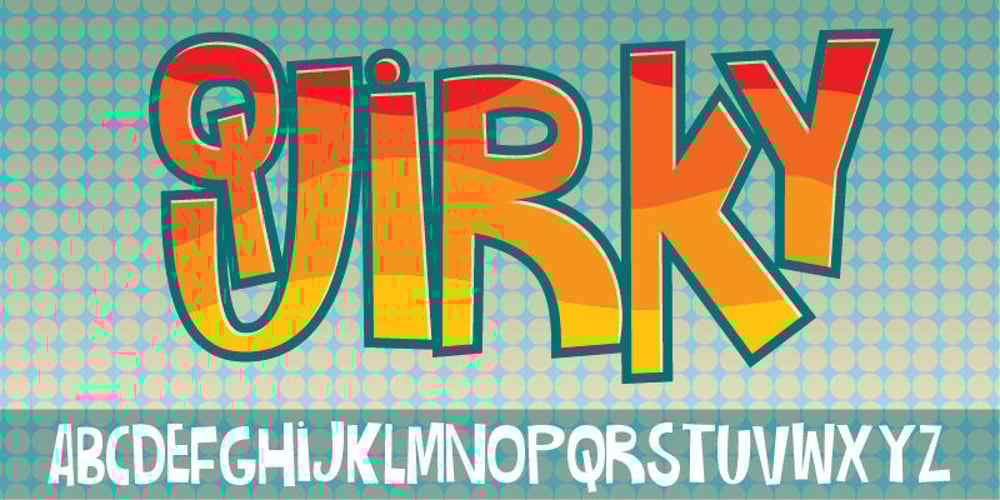
Quirky Font Family was designed by Jakob Fischer and published by PizzaDude.dk. Quirky contains 1 styles and family package options. Quirky is so unpredictable and full of weirdness that you don’t know what’s coming at you! The font has more than 250 different ligatures, that should be enough to boost your text into something funky and wild!